This October, the Indian Type Foundry is pleased to present four new typeface families for the Latin script: Eurosoft, Recia, Zahrah, and KunKun. Each is quite a different in terms of its design – one of them even references a centuries-old style of type and printing. Yet, they are all thoroughly 21st century products, and they come from around the world. Two were designed in France, while the others hail from India and Spain. All four are optimised for today’s communication needs. They look excellent in print, but there’s no reason they shouldn’t shape the text of your next websites or app, either. Have a look at our newest offerings:
Eurosoft
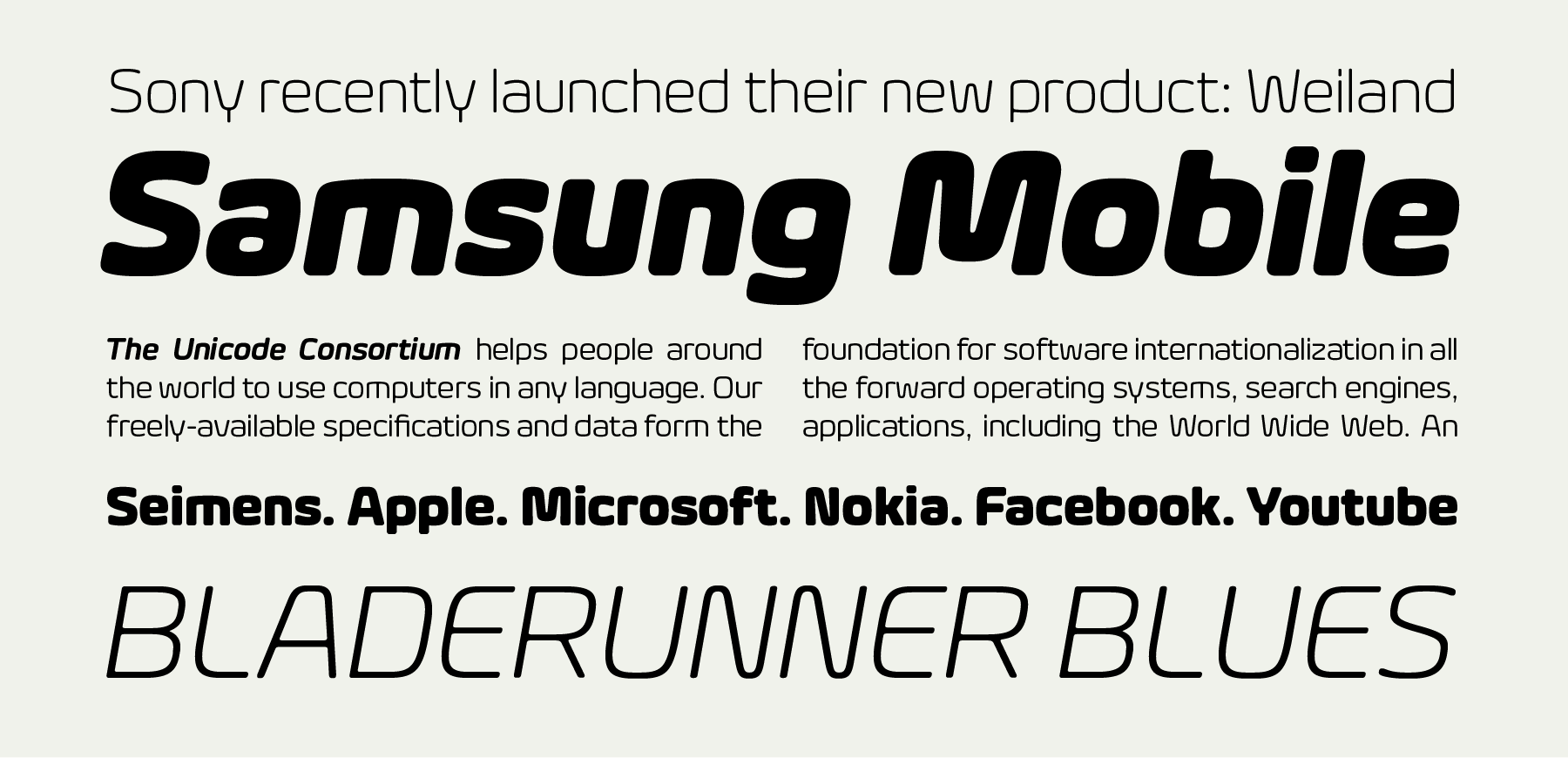
For over a decade, graphic designers have been using rounded typefaces to signify a brand’s friendliness; Eurosoft fits right into this. Eurosoft is a large sans serif family with 10 styles. It has five weights on offer, each with a companion Italic. The typeface was designed in Paris by Jeremie Hornus and Clara Jullien. As far as its appearance goes, Eurosoft is a technical-style typeface. Its letterforms are very square-like in terms of their forms, despite all of the typeface’s stroke terminals being rounded-off at their edges. This terminal treatment is more of a softer rounding-off than a sausage-style letterform. The stroke contrast in Eurosoftis very low; in fact, Eurosoft’s characters appear quite monolinear. Much of the typeface has been strongly simplified, for instance the lowercase a, g, m, n, r, and u have no spurs. The capital E, F, V, W, Y, and Z all feature corners that are more rounded than is common.
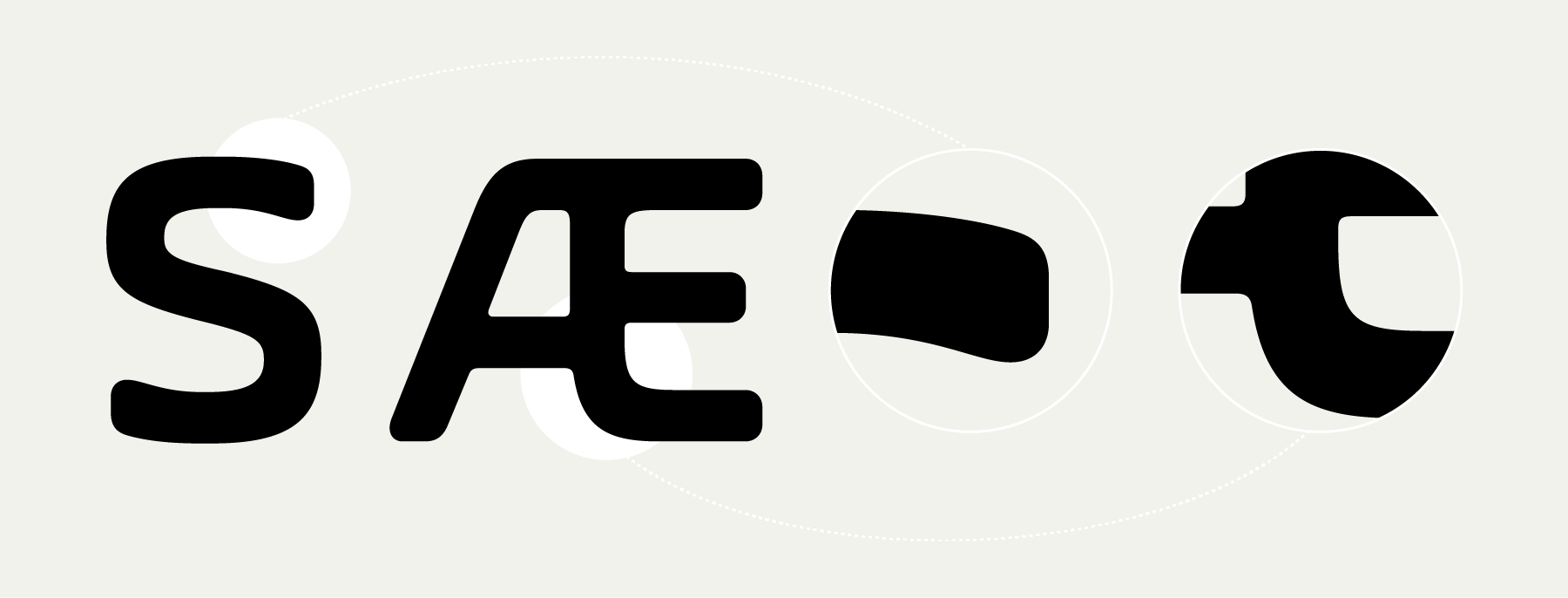
Eurosoft’s proportions include short ascenders and descenders, as well as diacritical marks that are almost flat. Lines of type in the fonts can be set tightly up against each other. The typeface’s Italic fonts are in fact ‘oblique’ designs, which helps strengthen the overall technical feeling of the family. Eurosoft’s character sets include 386 glyphs, and the fonts will work particularly well in either corporate identity projects or in editorial design usage.
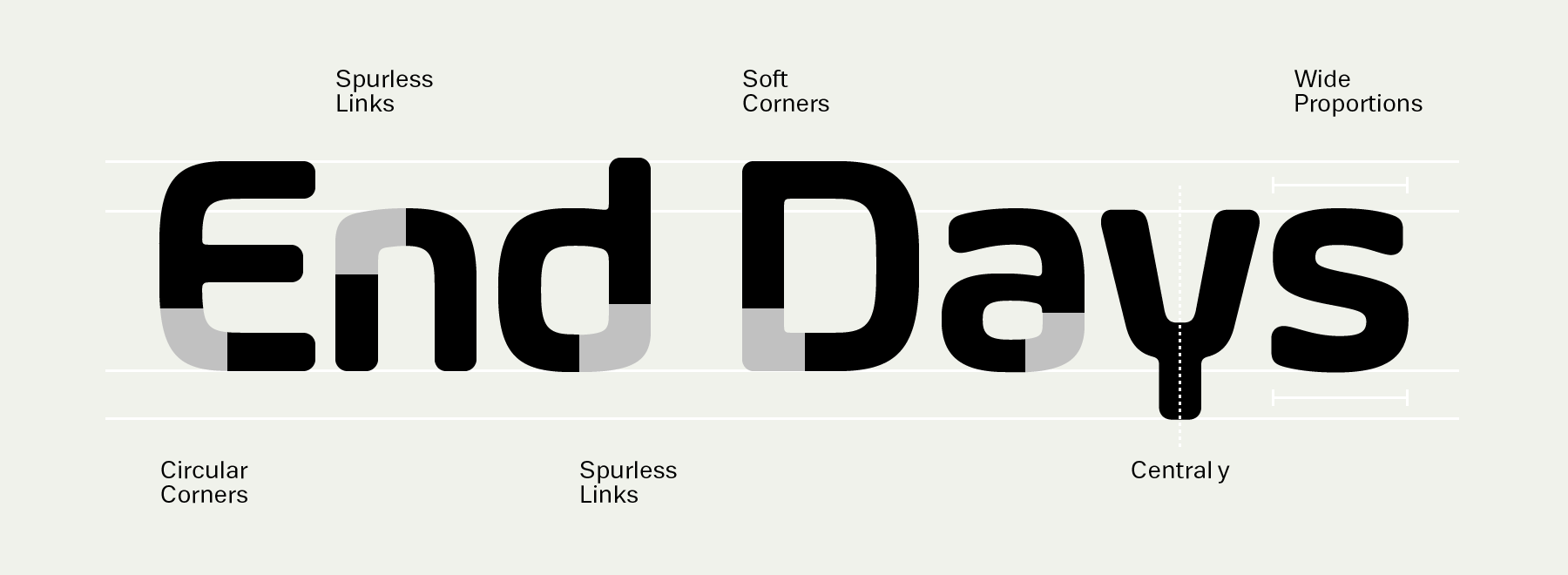
Recia
Carlos De Toro is a Spanish designer, based between Barcelona and Logroño, and Recia is his debut typeface with ITF. Like Eurosoft, the Recia family also comes in 10 styles, but its five Italic fonts are ‘true-italic’ designs, which feature a cursive-structure in the letters. Recia is a contemporary-style serif family.
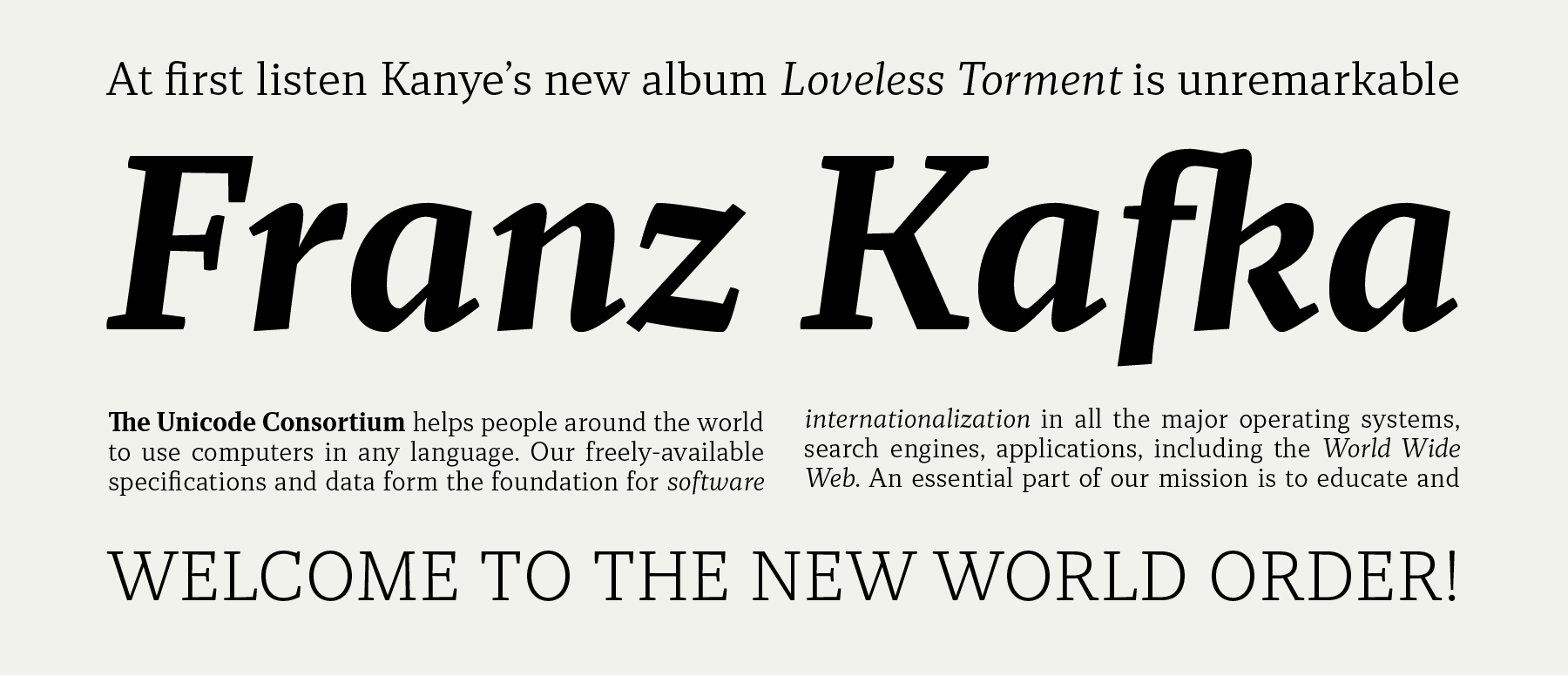
Its x-height is pretty high, as can be expected from today’s typefaces. The characters are slightly condensed in terms of their form, and their strokes are rather low-contrast. In the lighter weights, hardly any stroke contrast is visible between the thick and thin portions of the letters; in the Bold weights, stroke contrast is clear, but the thinner strokes are still quite chunky. There is no danger that they’ll break away in smaller point sizes. The axis of stress within Recia’s letters is vertical, and the typeface’s serifs all take wedge-shaped forms. Each font contains 516 glyphs, and the character set offers users multiple figure styles via OpenType features. The default numeral versions are proportional oldstyle figures. Recia is optimised for use in running text, particularly in less-than-optimal printing environments were sturdy letterforms are needed.
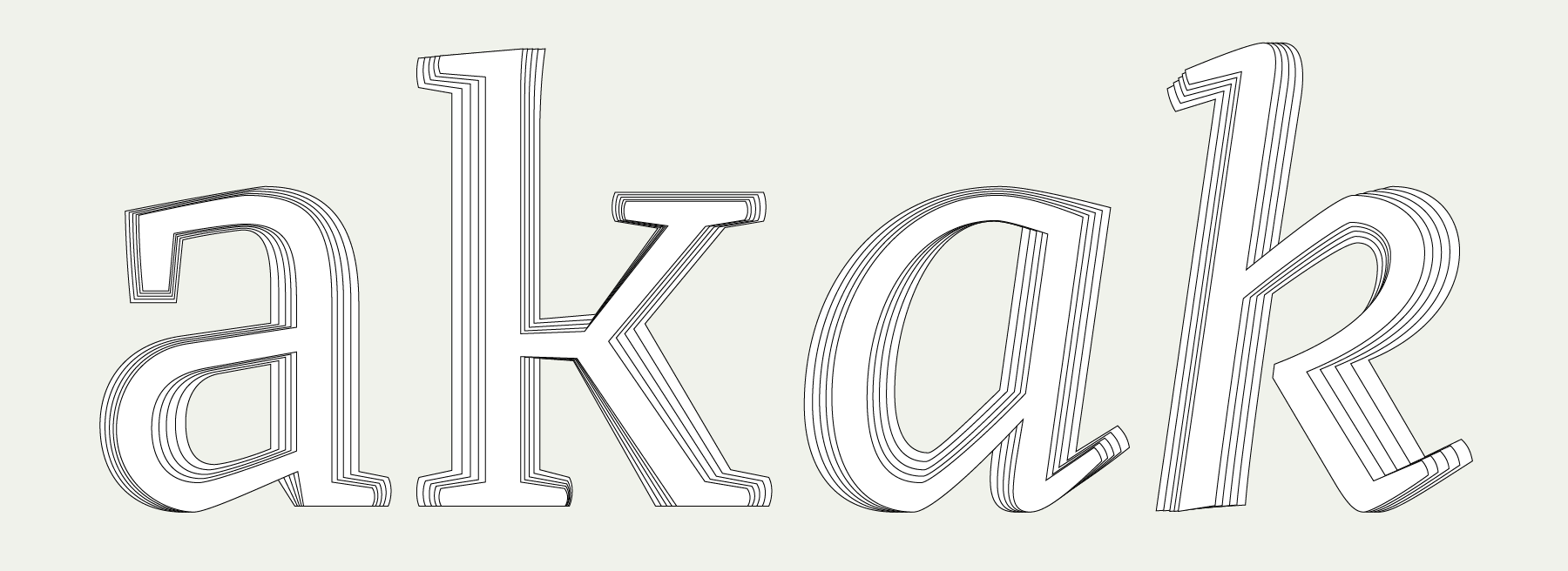
Zahrah
Zahrah is a multi-purpose text face from the Paris-based designer Yoann Minet. This Didone-style serif family includes ten styles, too. Each weight in the Zahrahfamily includes 395 glyphs. Like other Didone types, Zahrah is characterised by extreme differences between its thick and thin strokes.
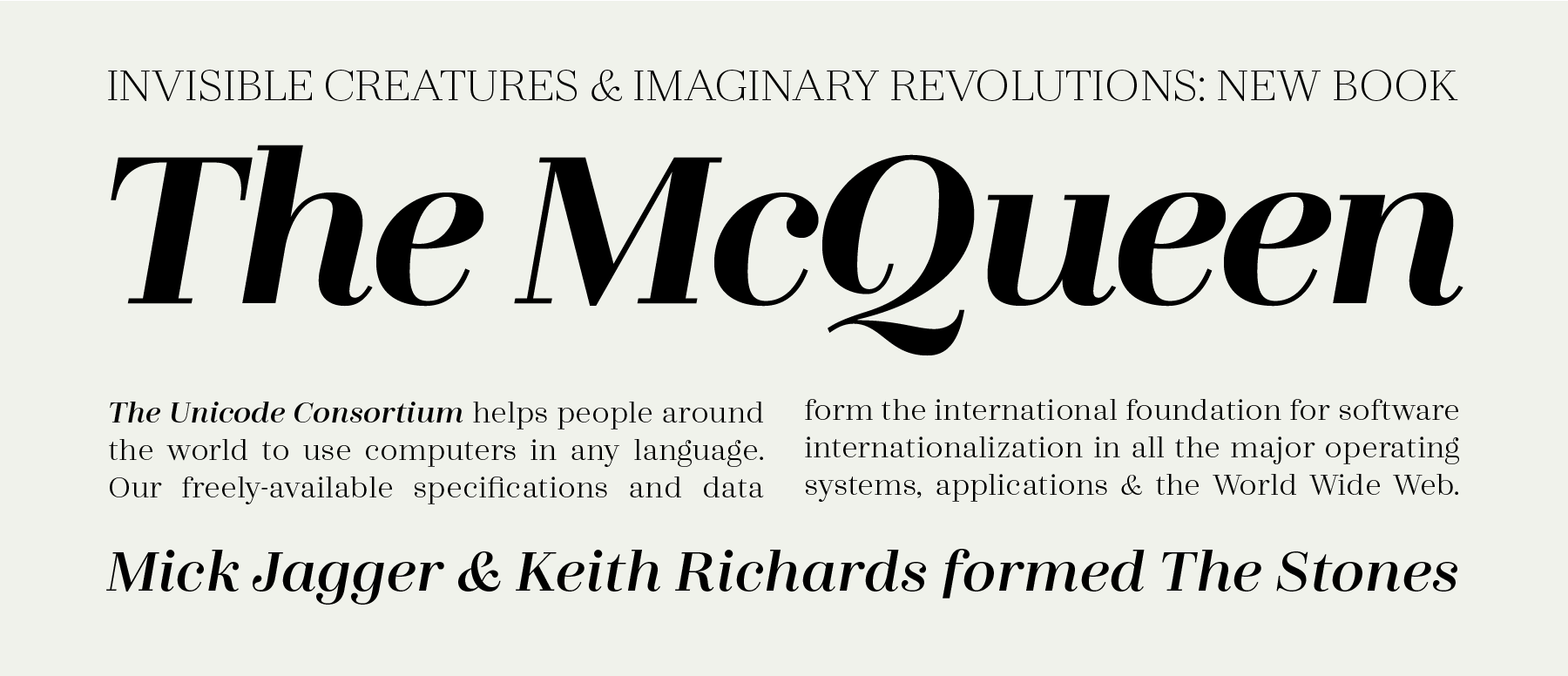
Zahrah may be used for a wide variety of applications, from fashion or cosmetic labels to newspaper text, and from academic publications to the annual reports of Fortune 500 companies. All of Zahrah’s capital letters are short; for a text face, there is barely any differentiation between the size of the uppercase and lowercase letters – they each virtually blend into one another inside a line of text. Zahrah’s letterforms all also appear somewhat extended. The italic characters, especially, are rather wide, with forms that feel open and round. Zahrah’s design includes unexpected details that lighten up text set with the face. For example, Zahrah’s numerals include a more curved skeleton than is normal; the bottom-left of the capital Q is open, and the upright lowercase g has a tall, curly ear.
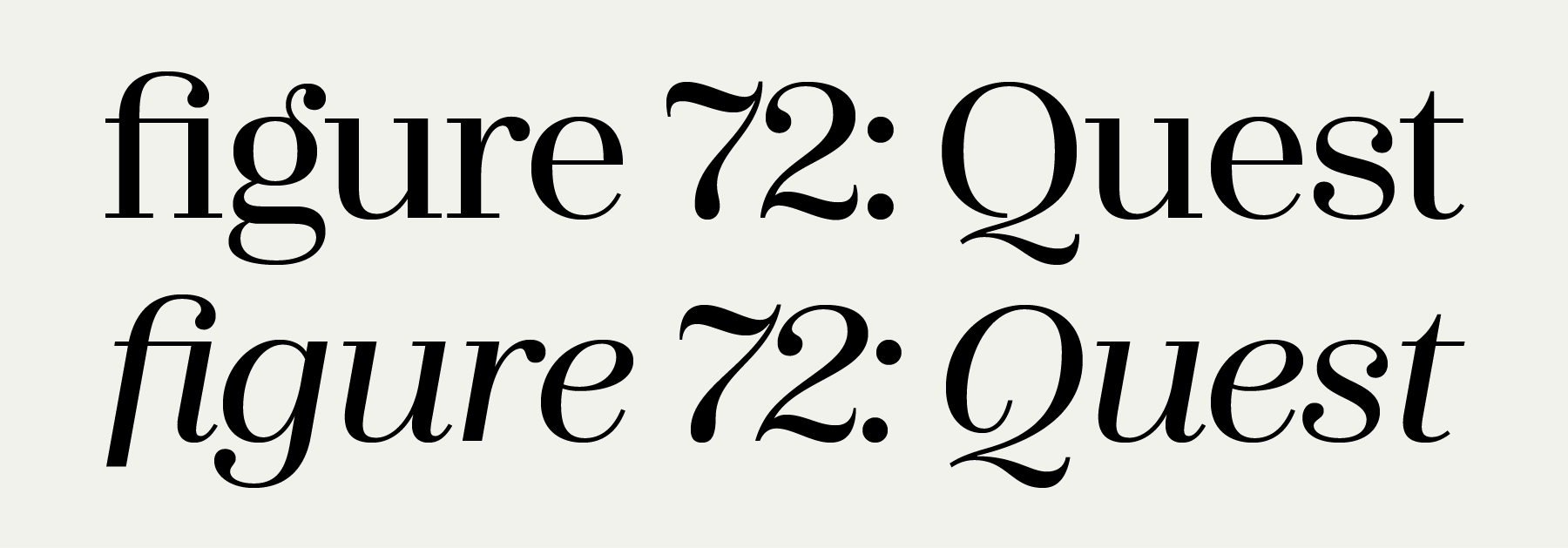
The family’s letterforms are full of little ball terminals, too, which get particularly playful in the Italic fonts. Even the typeface’s diacritics have personality: Zahrah’s acute, grave, caron, and circumflex all each made up of gently curing strokes, rather than straight lines.
KunKun
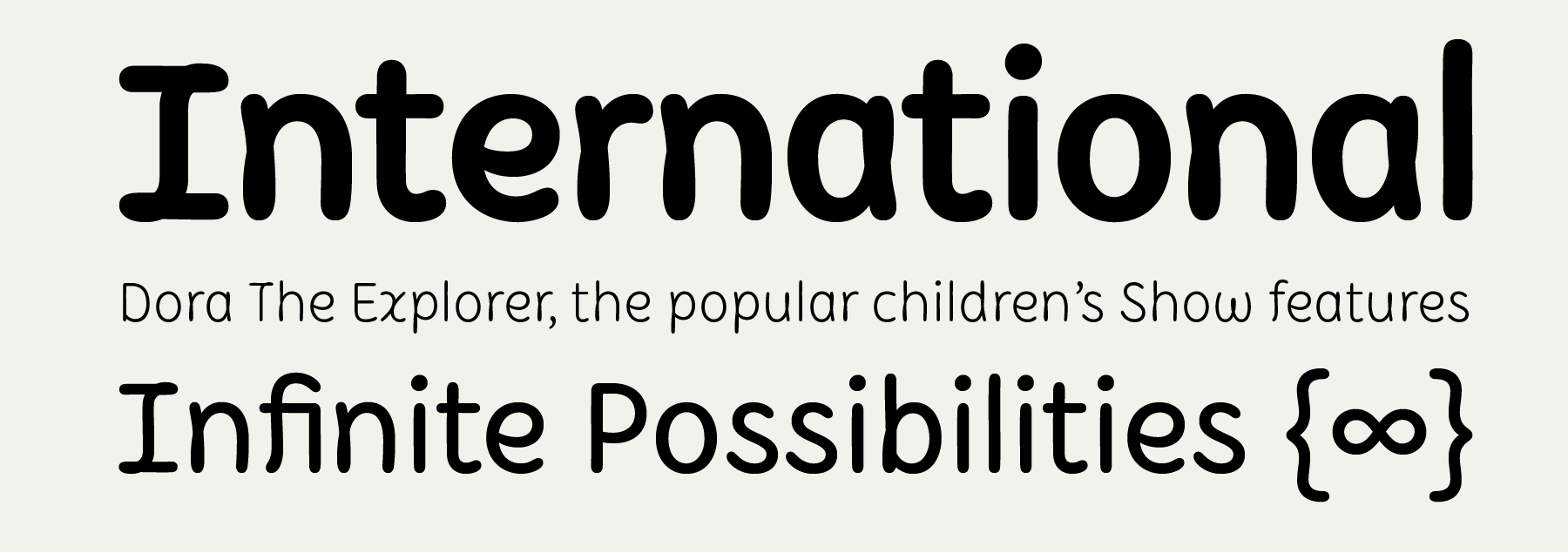
While KunKun is the smallest of October’s releases, it may be the most fun of the four families debuting this month. The typefaces is from Hitesh Malaviya, who also developed Brahmos and Quantum for ITF. It is the latin counterpart to our earlier KunKun Devanagari family designed by Neha Bahuguna in 2011. KunKun’s design is something of a ‘handwritten sans.’ Each letter looks as if it has been written with a single monolinear stroke. Unlike Eurosoft, all of KunKun’s terminals are fully rounded-off; indeed, they are kind of sausage-shaped. Three font styles are available – Light, Regular, and Bold – and each contains 406 glyphs. The looped descenders on the lowercase g, y, and z strengthen KunKun’s informal appearance. These are particularly nice touches; they make the z into a two-storied letter, for instance. More standard-looking variants of g, y, and z are available via an OpenType feature in a Stylistic Set.
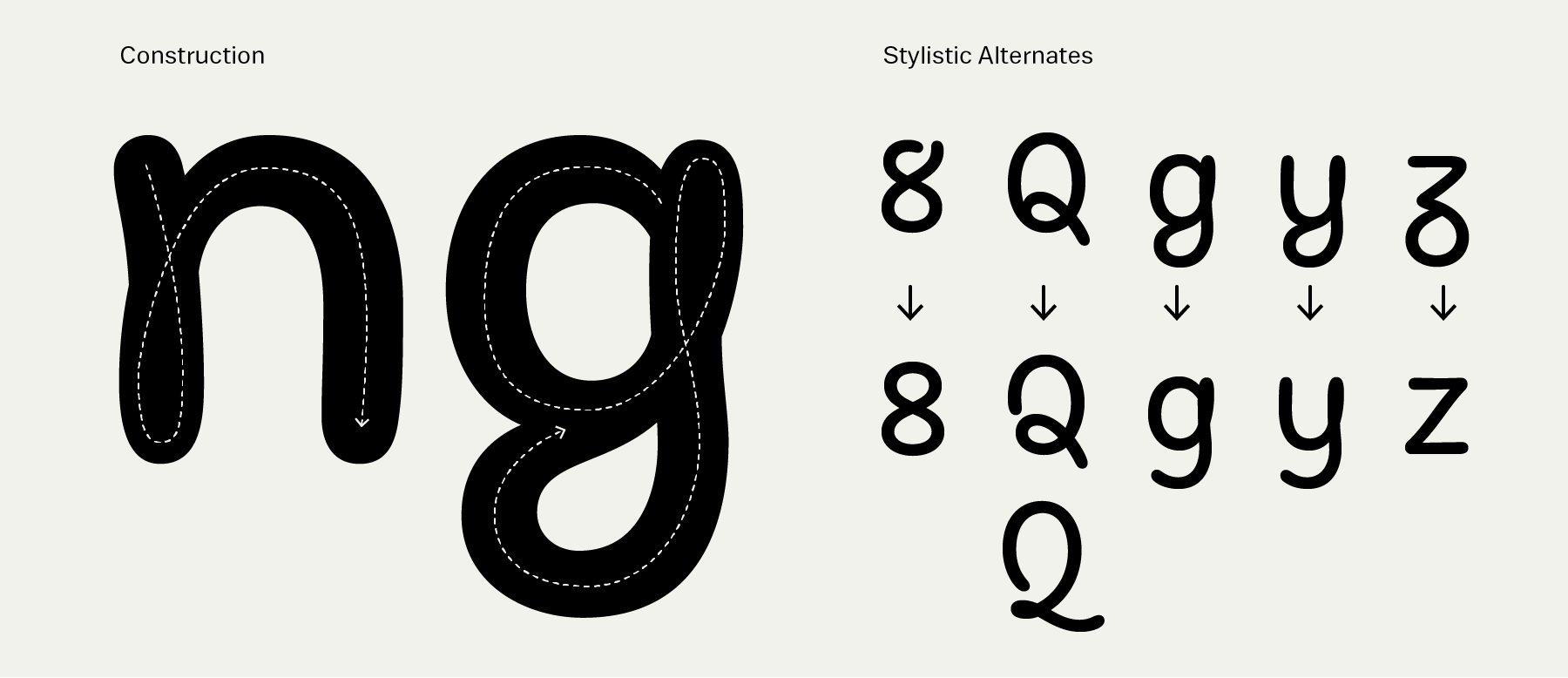
Despite KunKun’s informality, its basic proportions are in keeping with many other ITF text faces; KunKun features a large x-height and ascenders that rise above the uppercase letters. The descenders do not appear to be so deep, although they are optically as long as the ascenders. Special characters like the &, @, and § all take standard, typographic forms. Of the alphabet characters, only the H is particularly whimsical. Each KunKun font also includes two alternate forms for the capital Q, and an optional closed-form 8; the standard version of the 8 is open at its top-right.